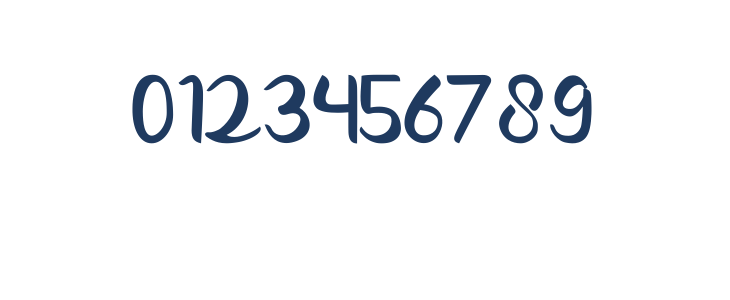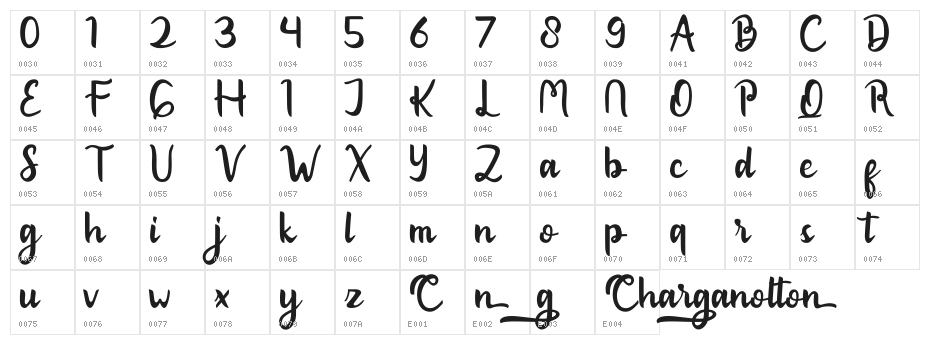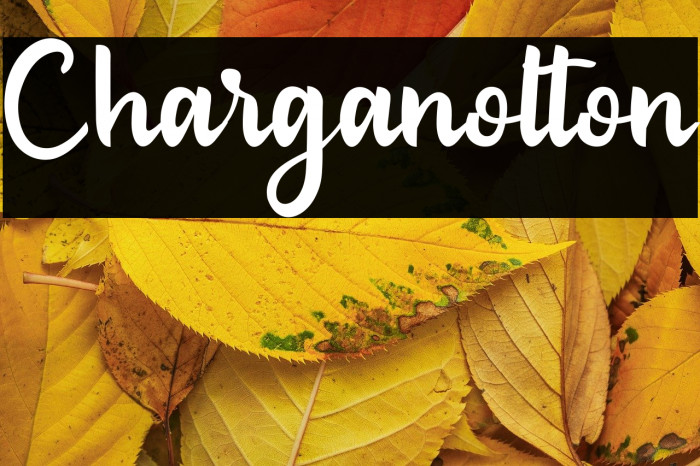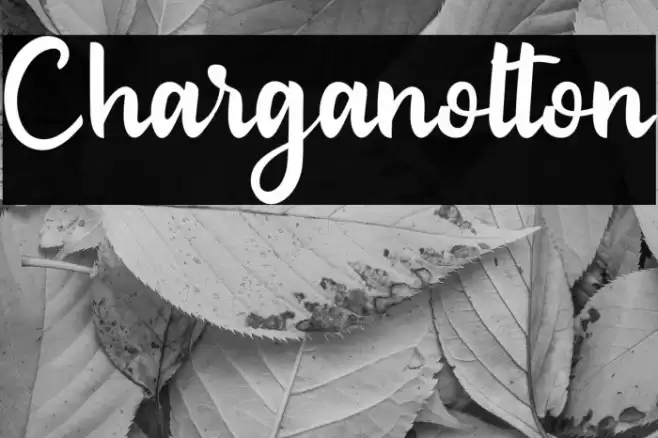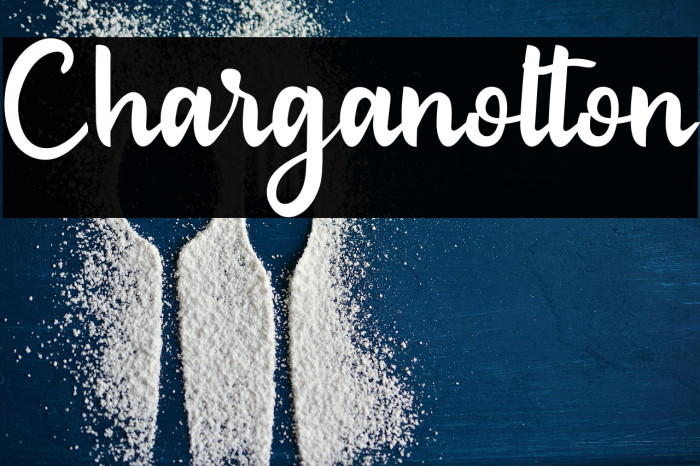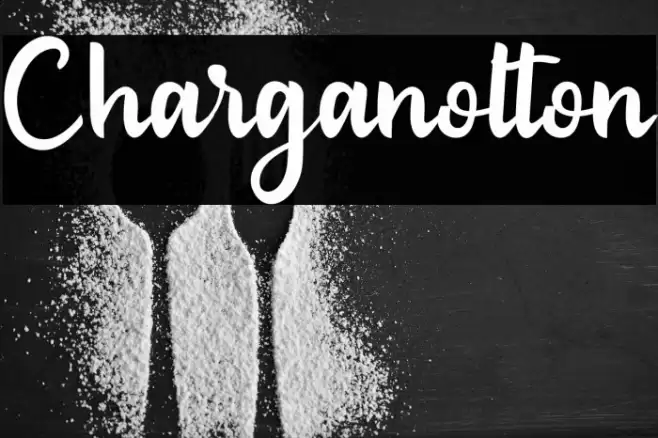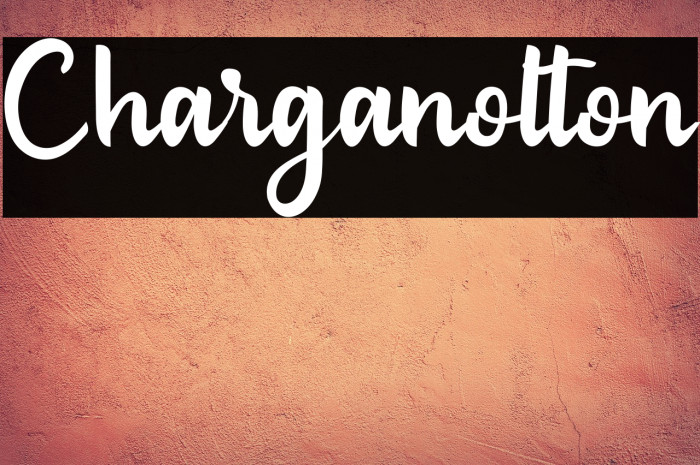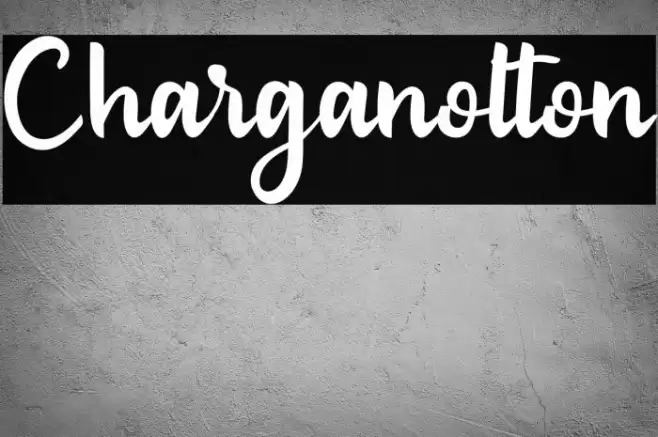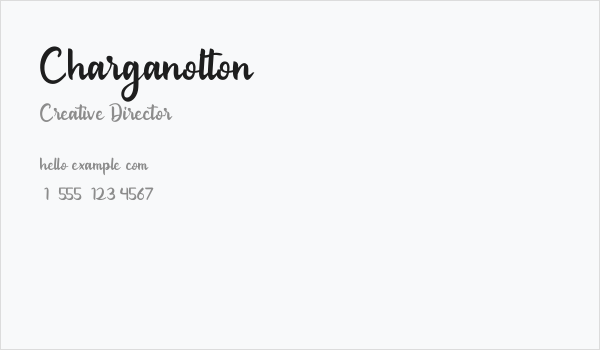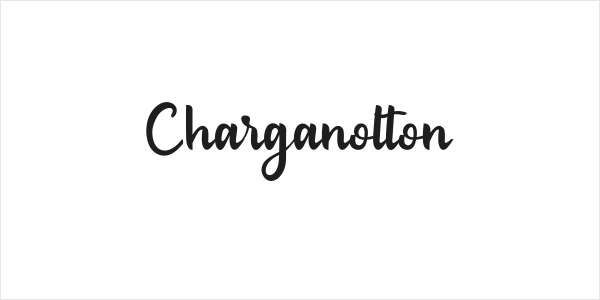
Charganolton Font
Charganolton Description
This font features a playful and flowing script style with a hand-drawn appearance. The uppercase letters are bold and slightly condensed, with unique flourishes that add a whimsical touch. The lowercase letters maintain a consistent flow, with smooth curves and rounded edges, enhancing the font's friendly and approachable feel. The numerals are bold and slightly rounded, matching the overall style of the letters. This font is versatile and can be used to add a personal touch to various design projects. Its distinctive character makes it suitable for creative and informal applications.
| Proposed Projects | Ideal for greeting cards, invitations, logos, and branding materials that require a personal and creative touch. |